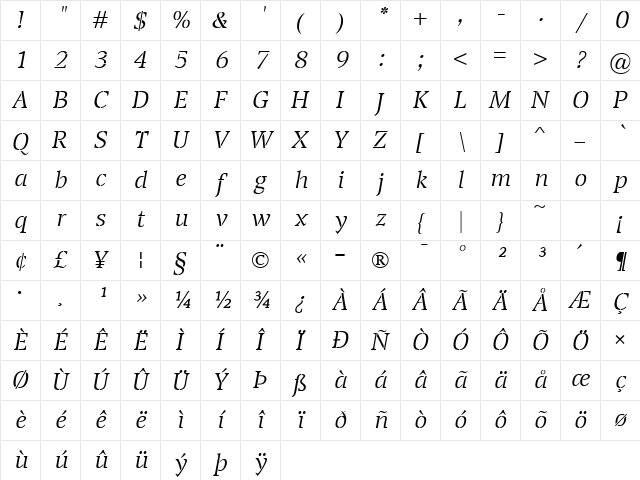
Transport Light Italic Free Font
Transport Light Italic
Design Context for Transport Light
Transport Light brings high-energy athletic personality to the page - its confident, muscular forms are built for impact. The slanted form adds forward momentum and visual energy. Its slender proportions lend an understated elegance to any composition.
Pro Tip: Use Transport Light in all-caps headlines where its athletic energy can fully express itself. Pair with a solid, simple sans for supporting text.